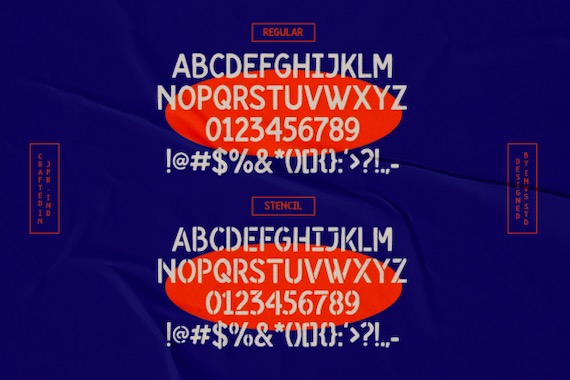
Amateur Hunter Font is an elegant and strong classic display typeface that was created by invasistudio. You will feel pleased with your designs that use this font.
Amateur Hunter Display Font